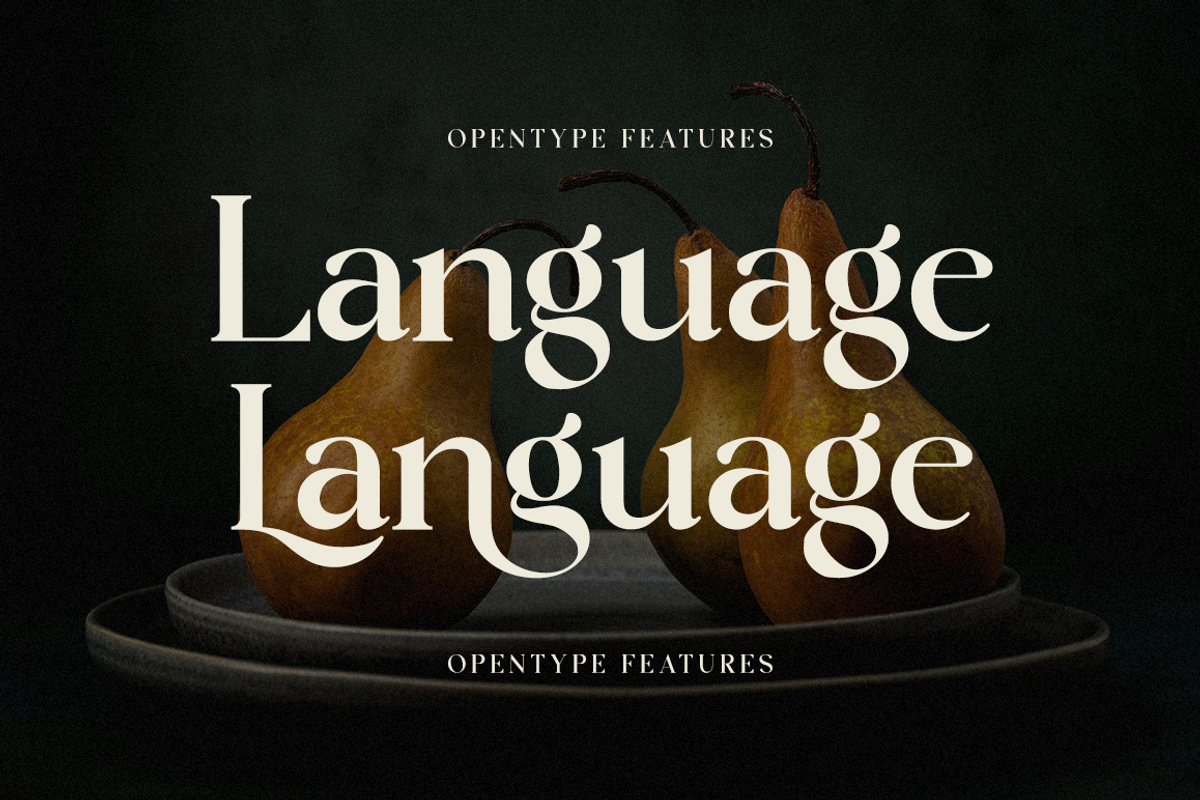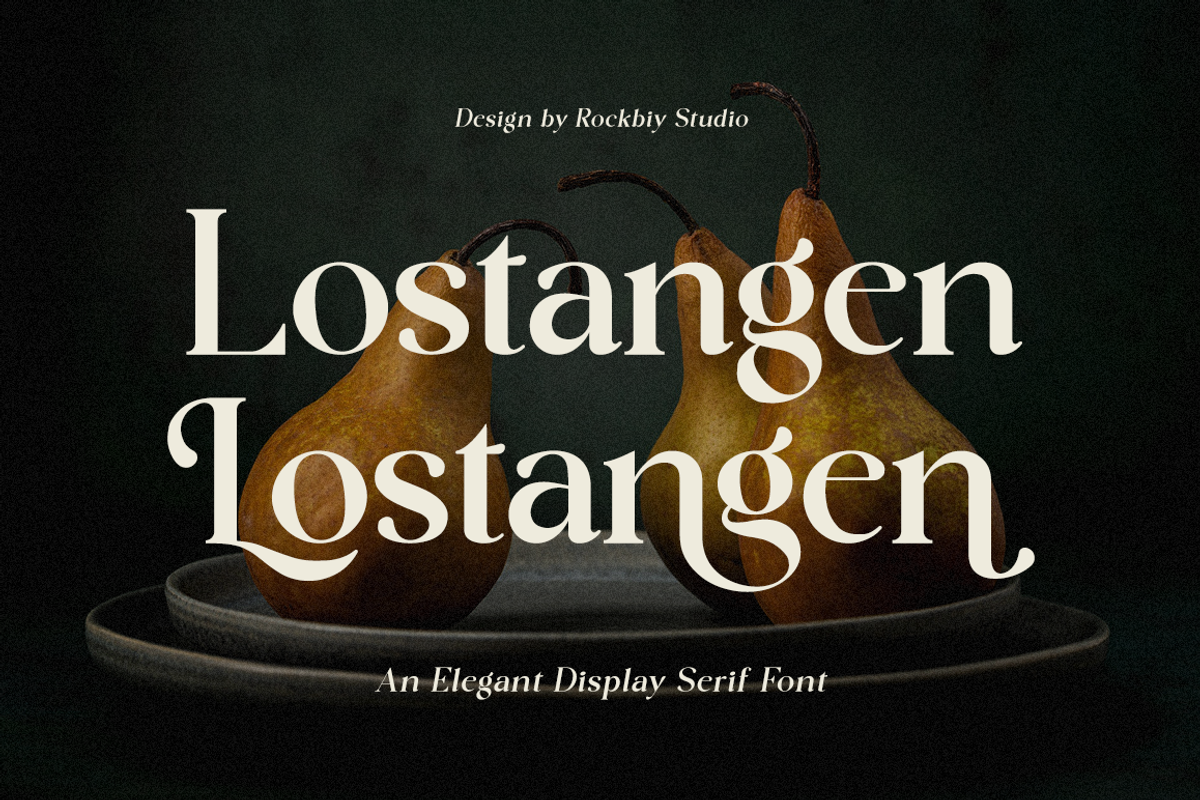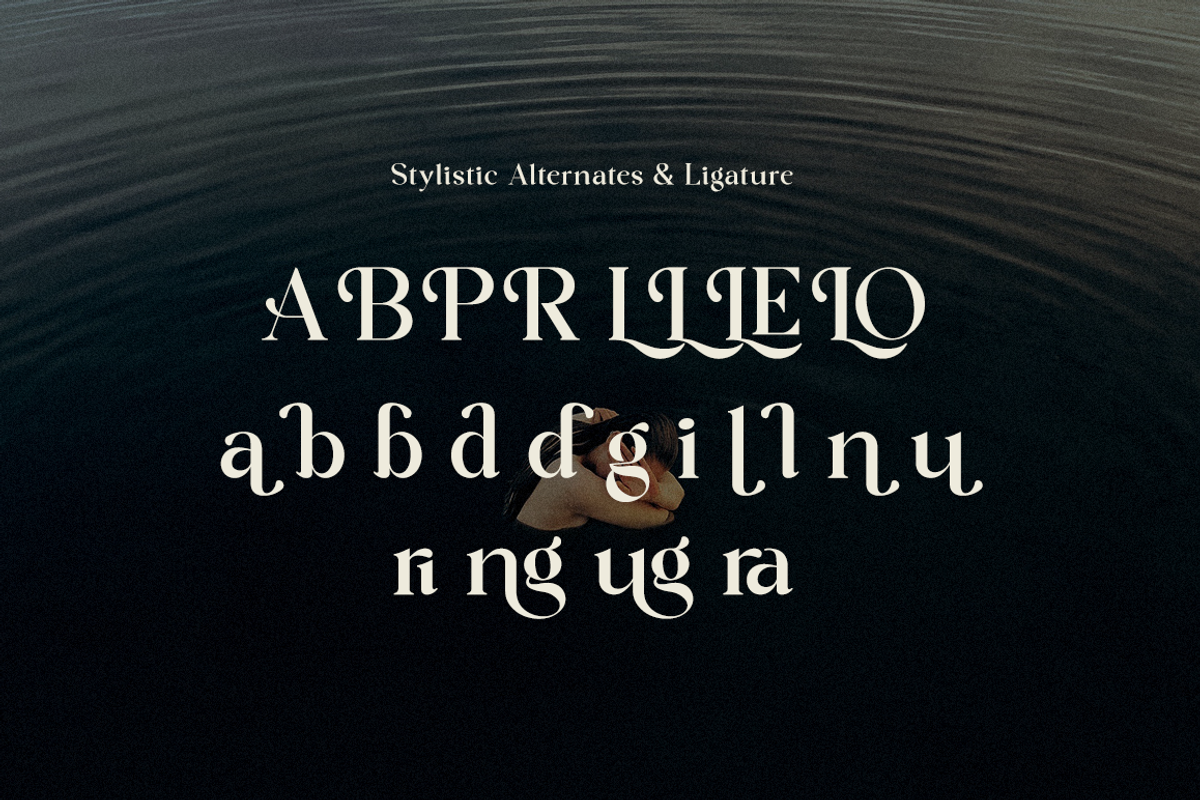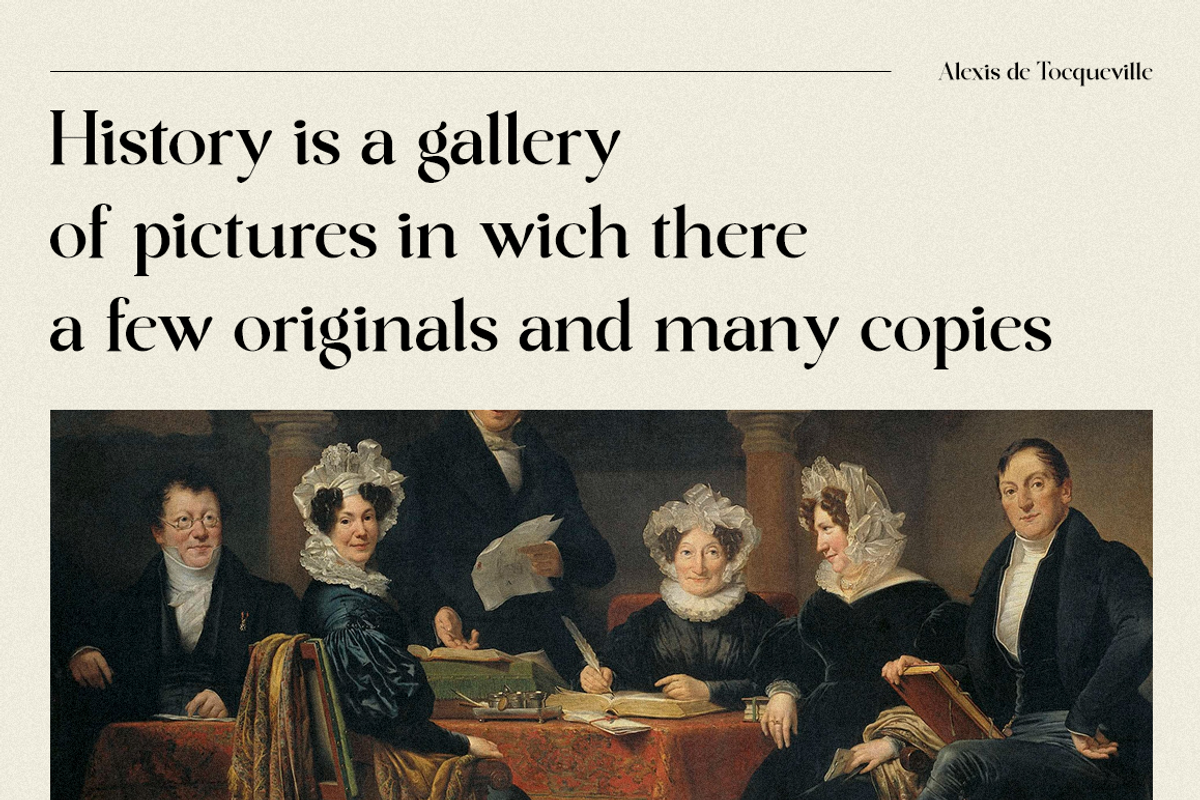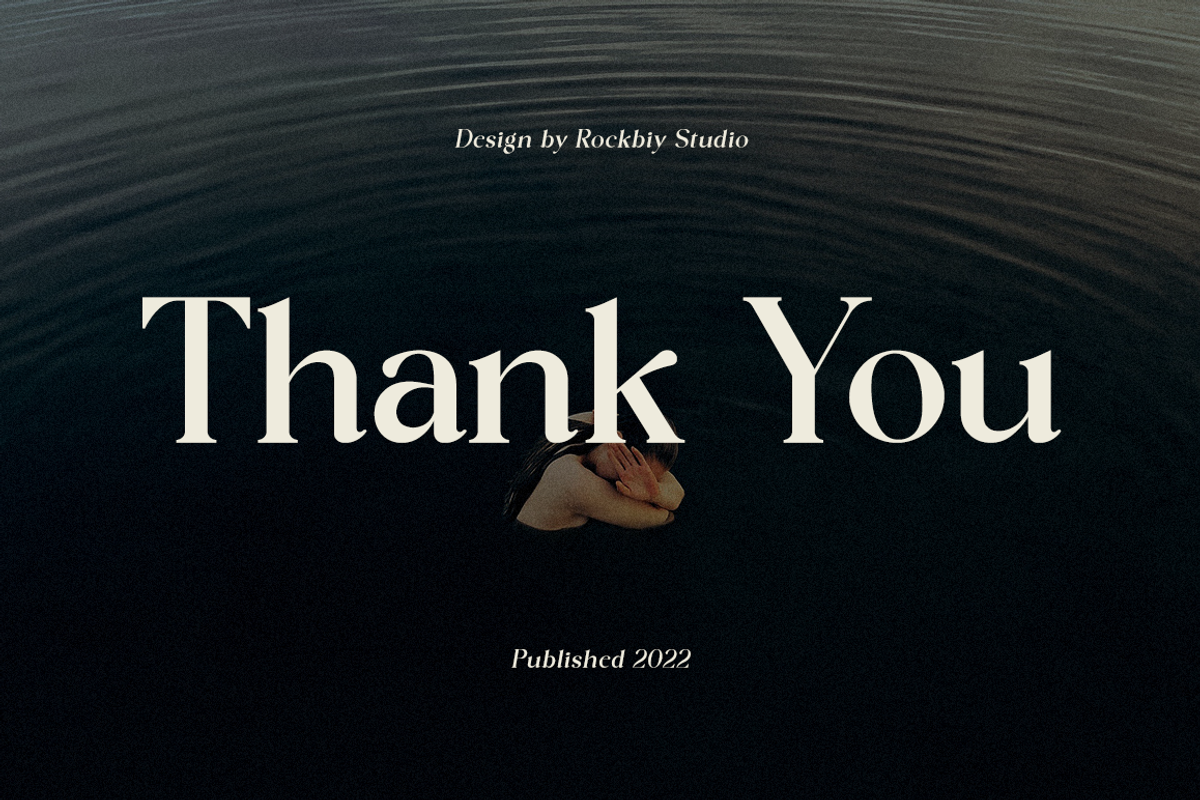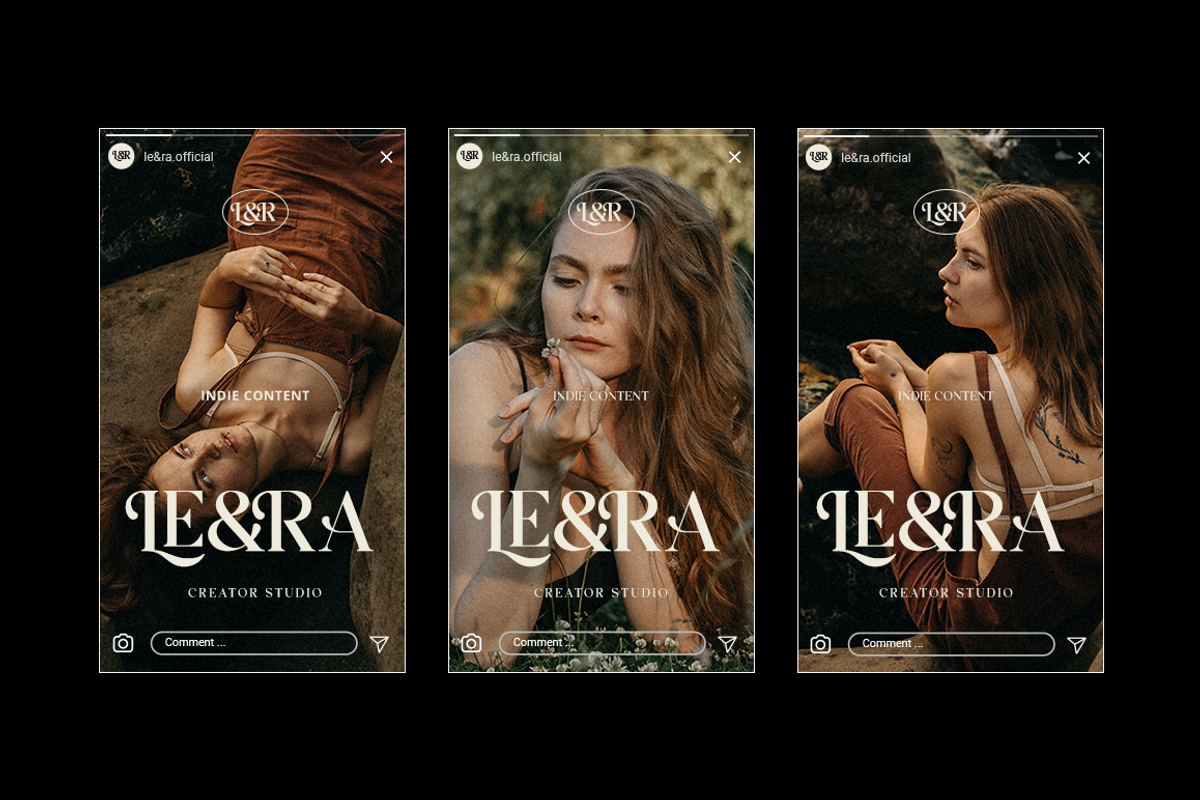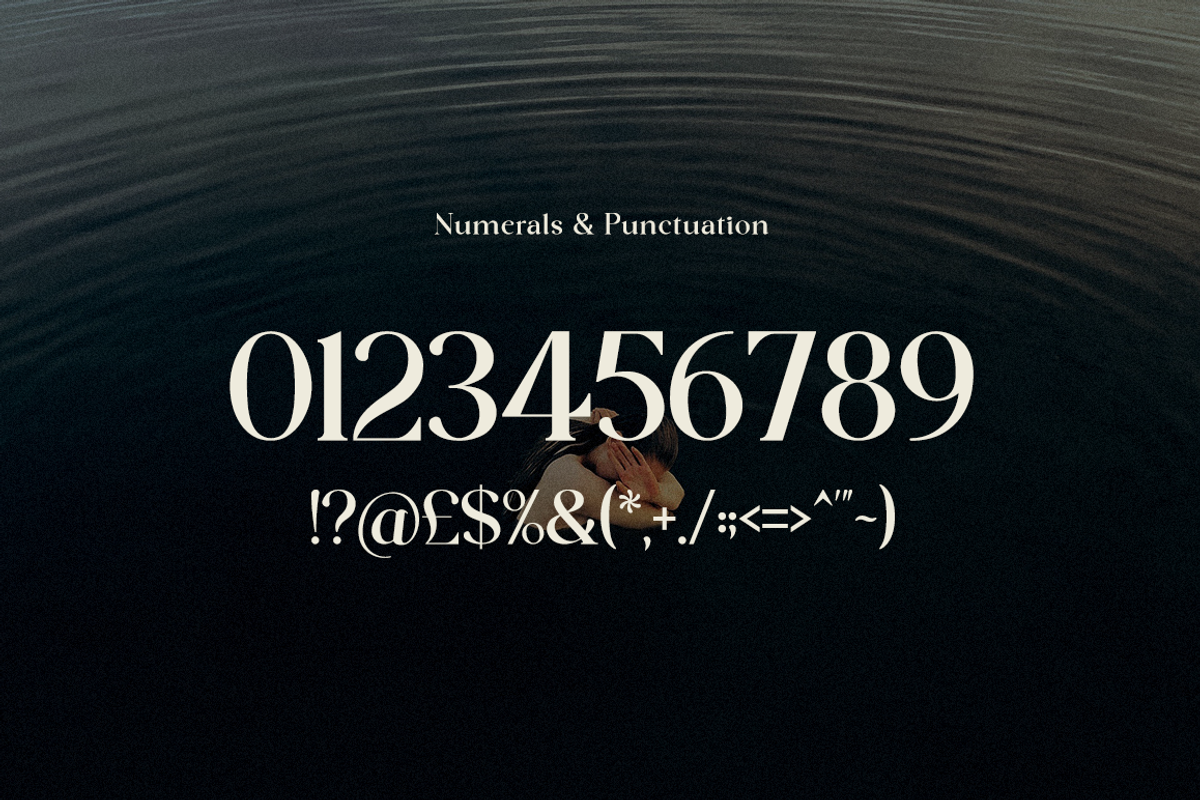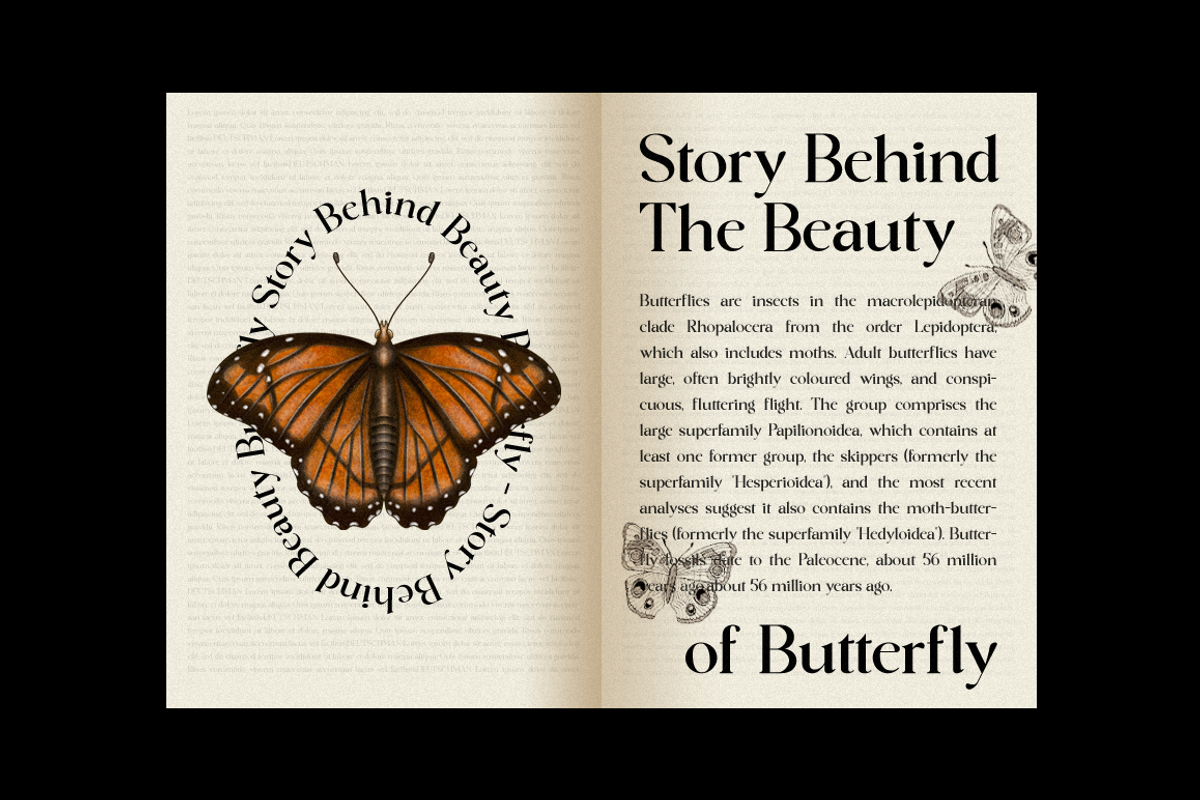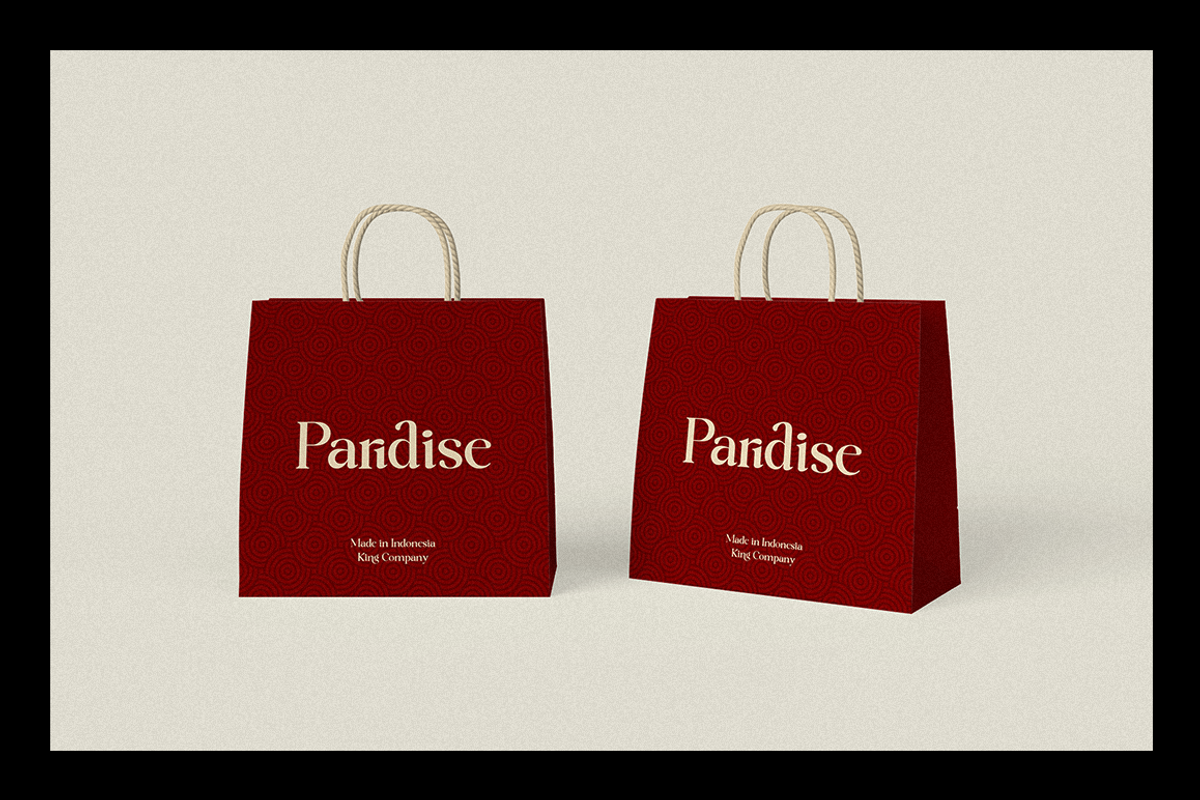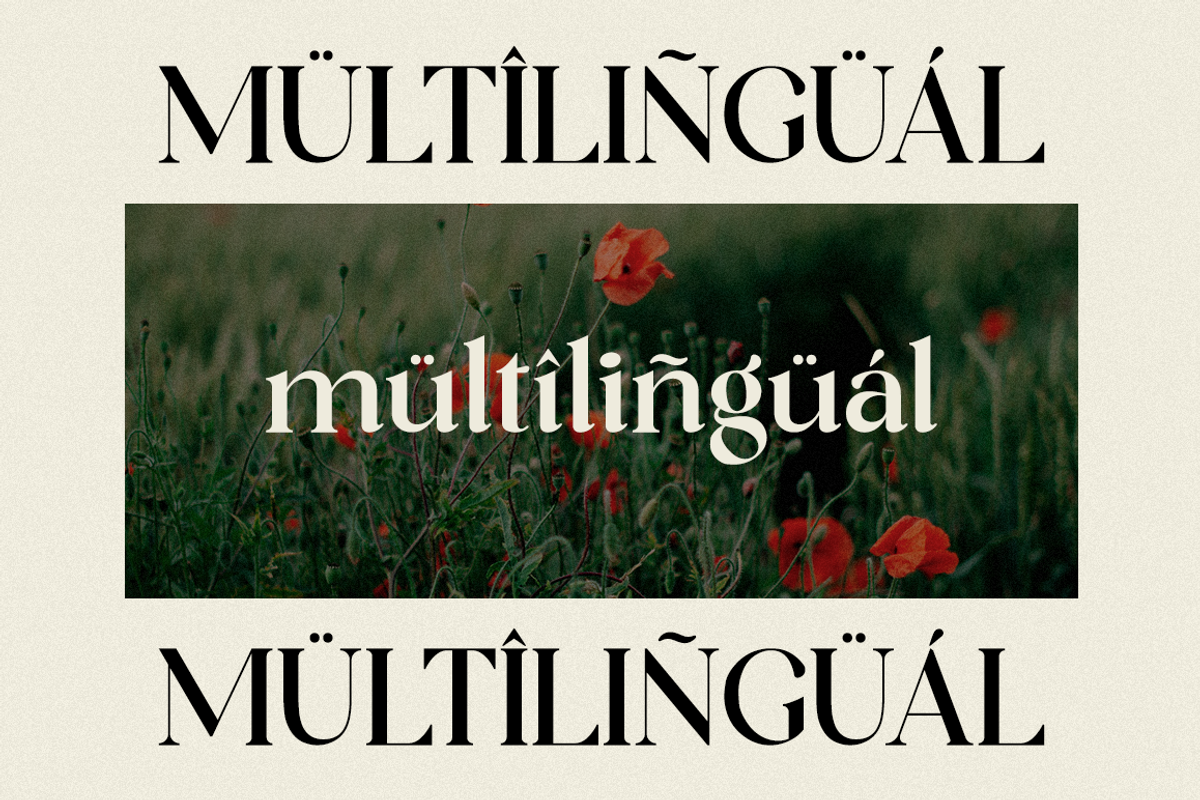
Lostangen - Elegant Classy Font
Lostangen is an elegant and distinct serif font. Suitable to a wide variety of designs due to its neat and simple style, this font has the potential to become your favorite go-to font, no matter the occasion!